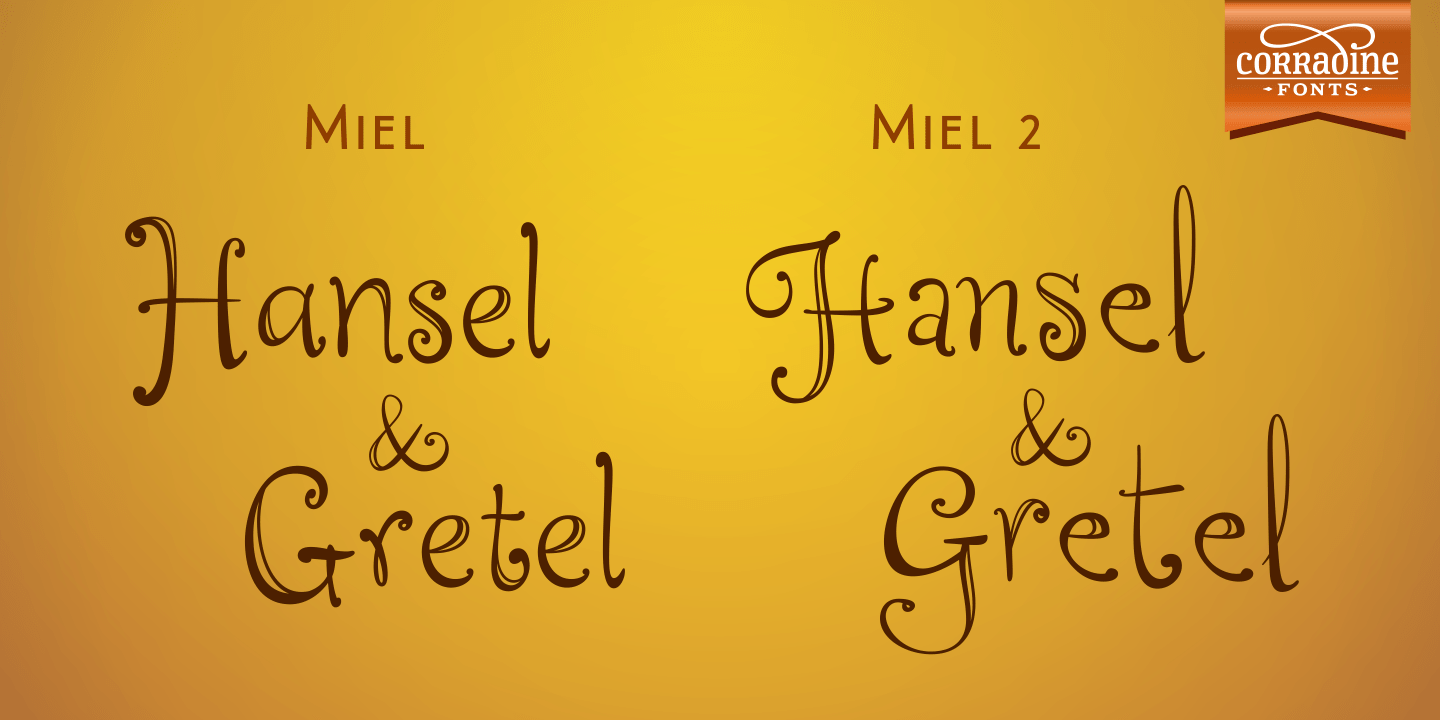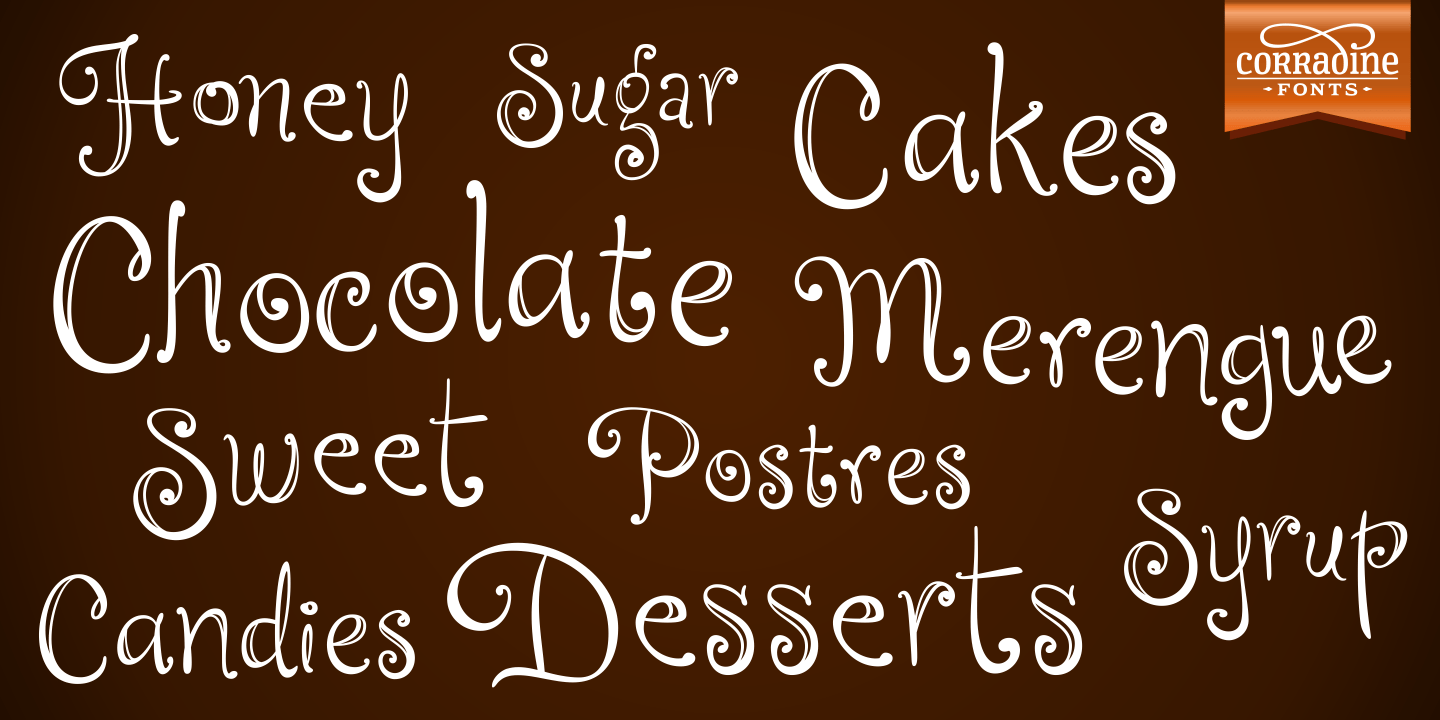
Miel
Font Family by Corradine Fonts
Miel is a playful handwritten font family with a fun, slightly wacky personality. Its casual letterforms give designs an easygoing, expressive feel that stands out without looking forced, making it a strong choice when you want something friendly, quirky, and full of character.
Offered by Corradine Fonts, the family includes 2 styles: Miel 2 and Miel Regular. This small, focused set makes it easy to create lively display work for posters, packaging, social graphics, invitations, crafts, or branding that benefits from a more personal, hand-drawn touch.